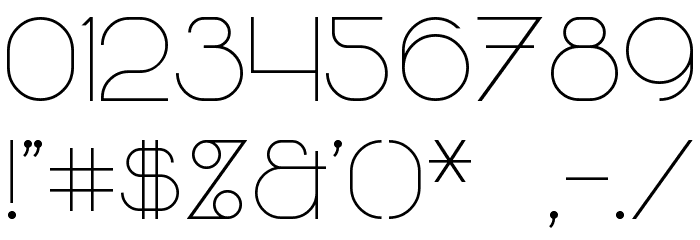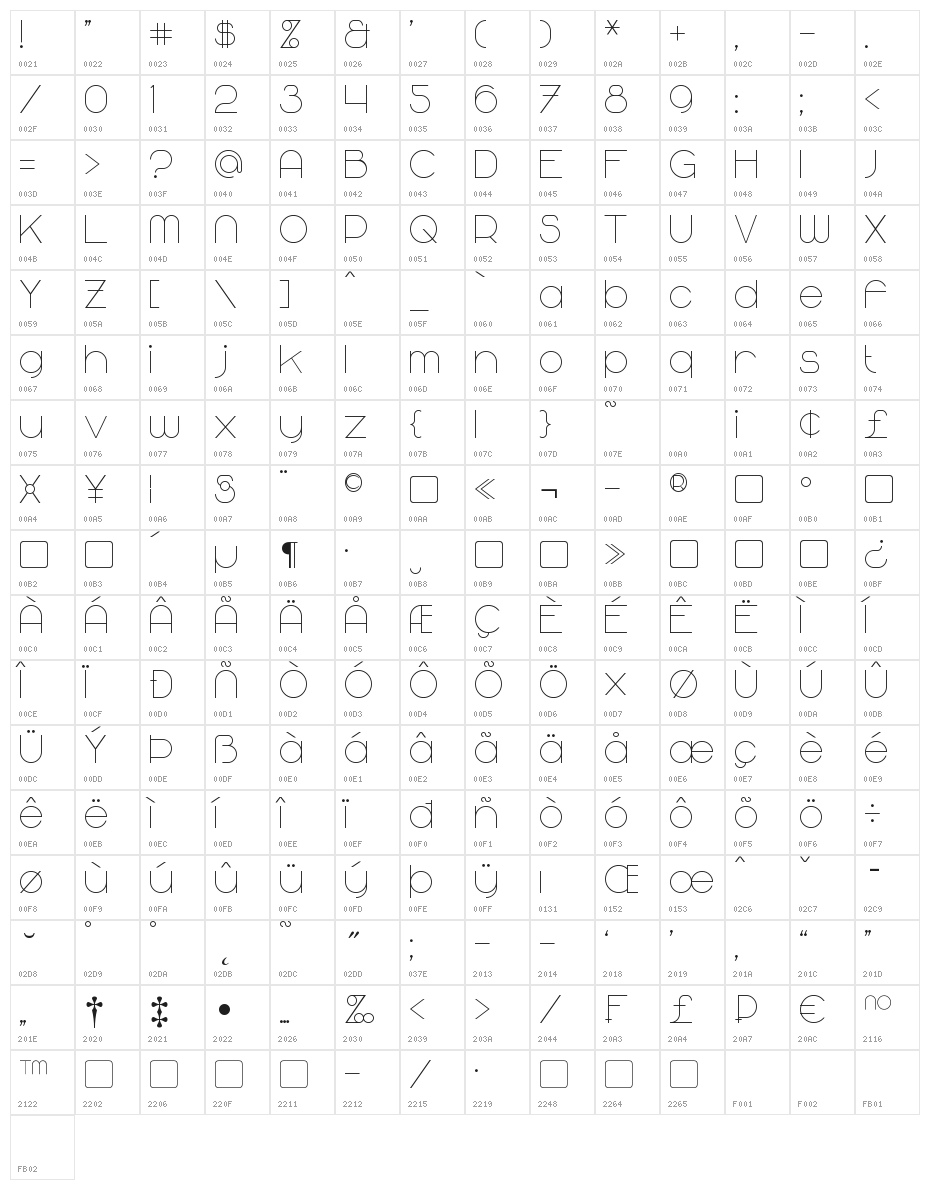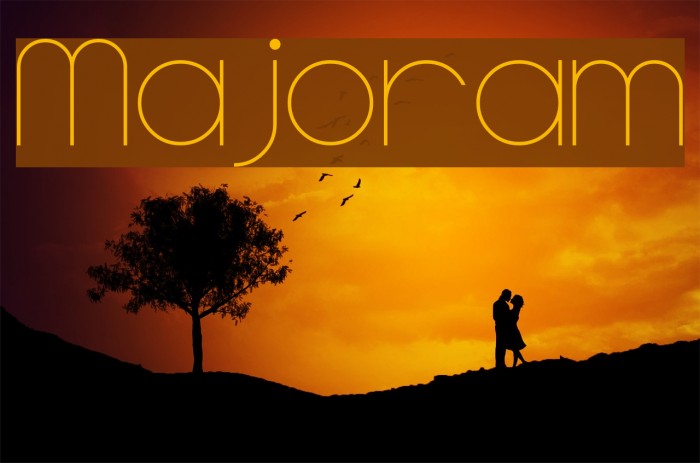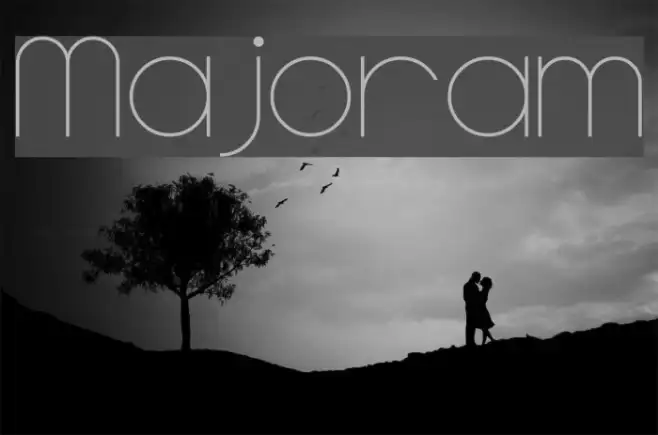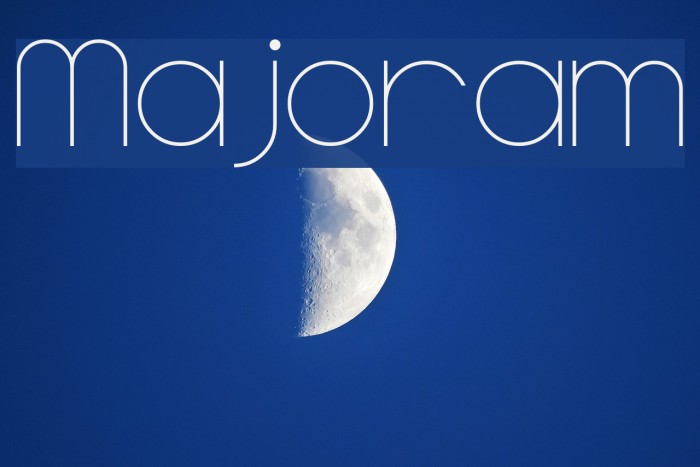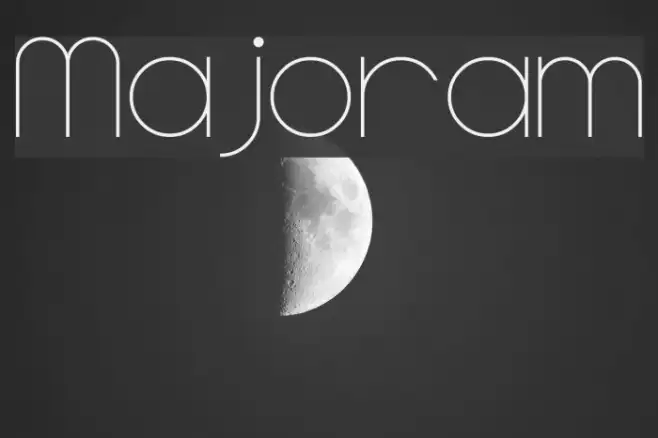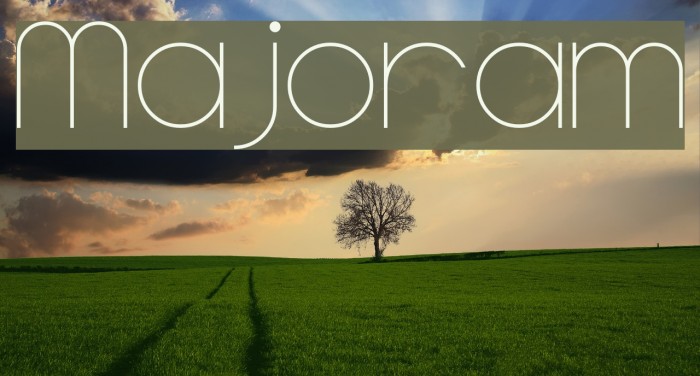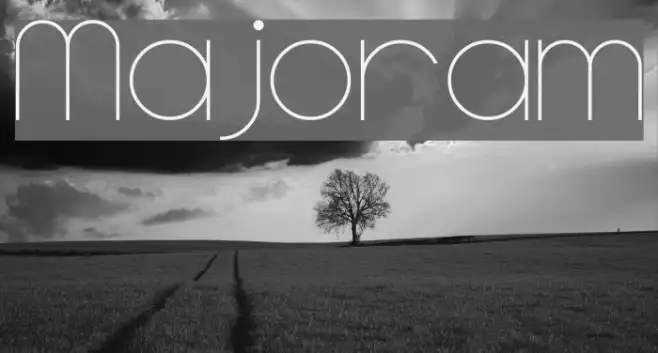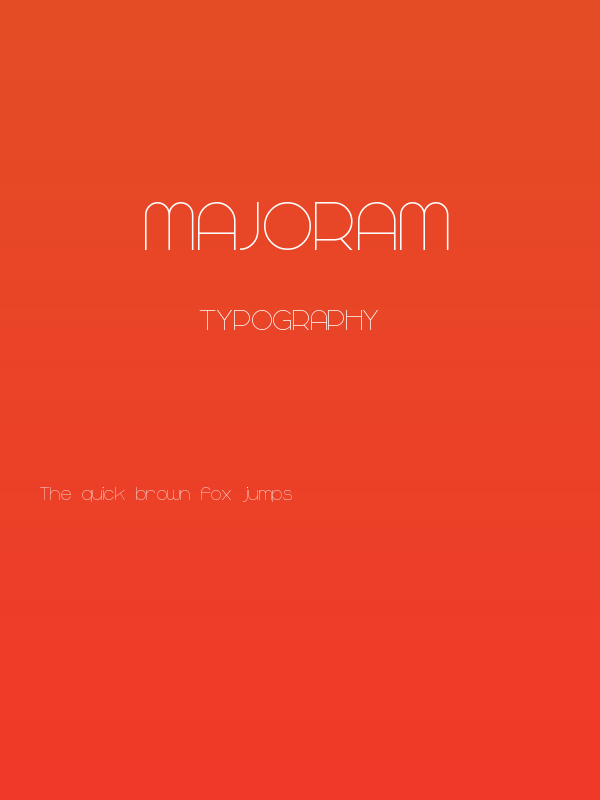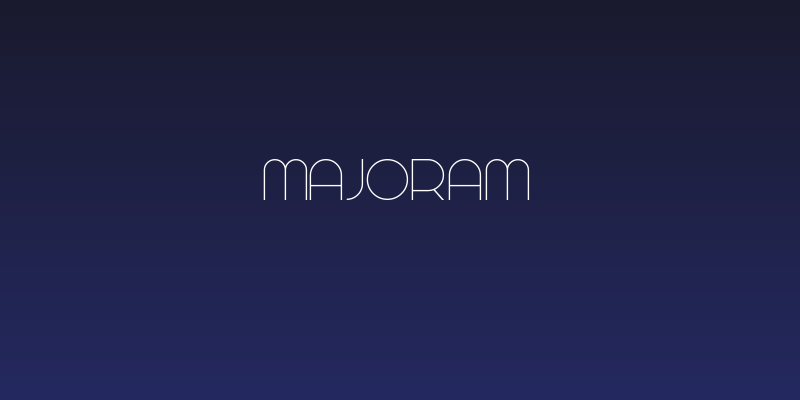
Majoram Font
Majoram Description
This font features a sleek, geometric design with clean lines and a modern aesthetic. The characters are composed of thin, uniform strokes that create a sense of elegance and sophistication. The uppercase letters are tall and narrow, while the lowercase letters maintain a consistent height, contributing to a harmonious appearance. The numerals and special characters follow the same minimalist style, making the font versatile for various applications. Its simplicity and clarity make it suitable for contemporary design projects.
| Proposed Projects | Ideal for branding, advertising, modern web design, and editorial layouts. |